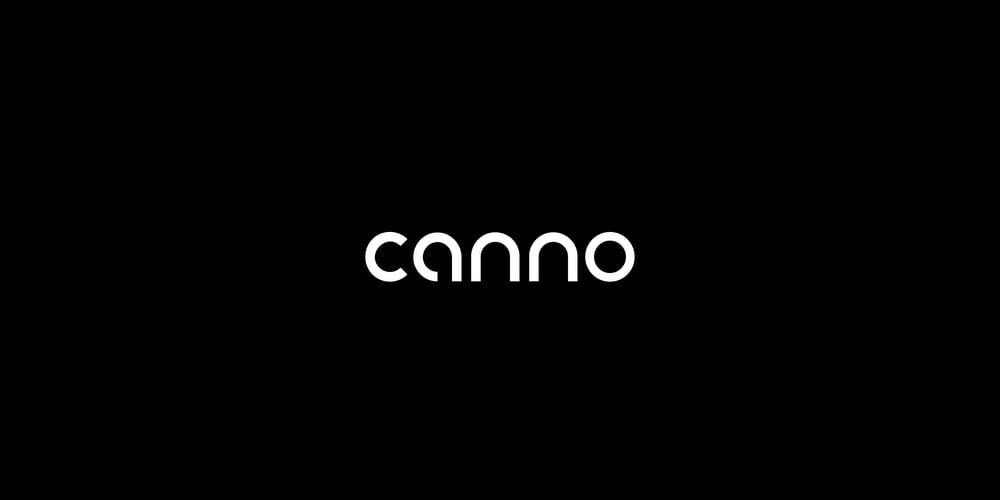
MBF Canno
MBF Canno font
MBF Canno Font Family was designed by Bramaji Dipa Manggala and published by Moonbandit. MBF Canno contains 1 styles and family package options. A geometric modern with rounded corner sans serif font. This sleek and clean typeface is perfect for futuristic, scifi, technology theme projects. Use canno for poster, headlines, titling, logo and many more.